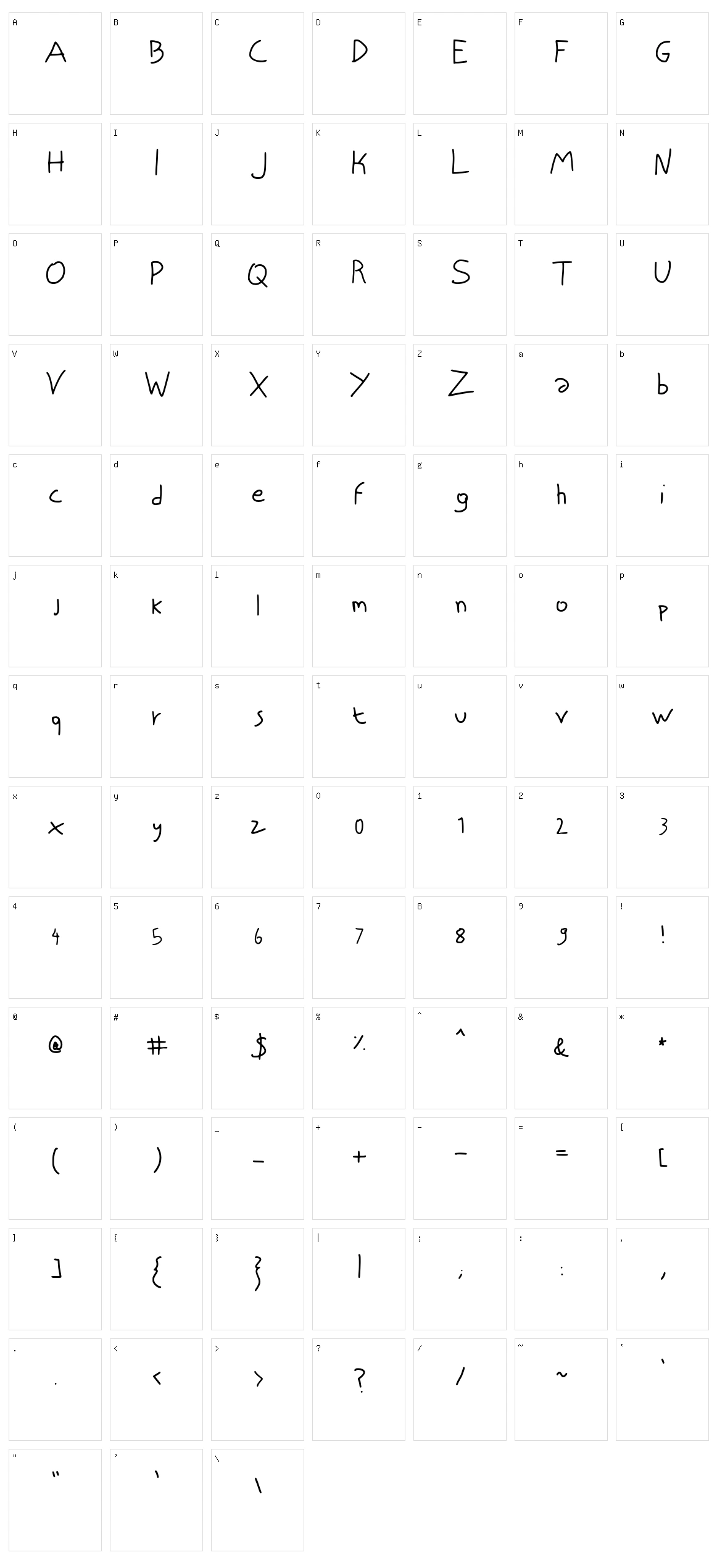
The free font Niscript is carefully designed by blazardsky, showcasing a thoughtful balance of creativity and usability and falls under the Script font style. When you download the ZIP file, it contains only 263.53 KB of font files, making it lightweight and quick to download. Please review the license details below to understand permitted usage and distribution rights. If license information is not available, we recommend using this font for personal projects only or contacting the author directly for commercial usage permissions.